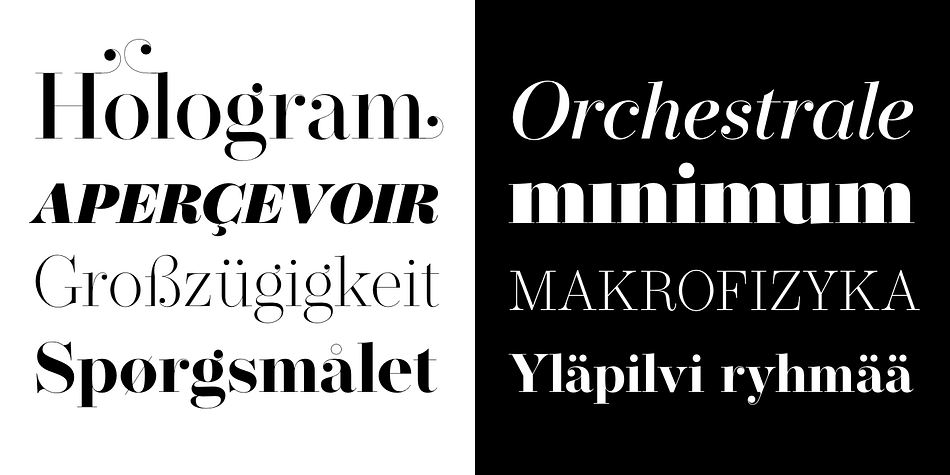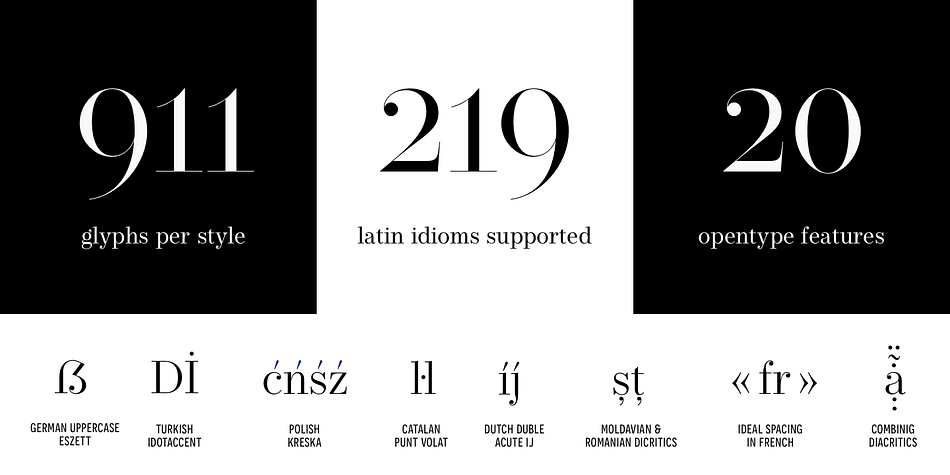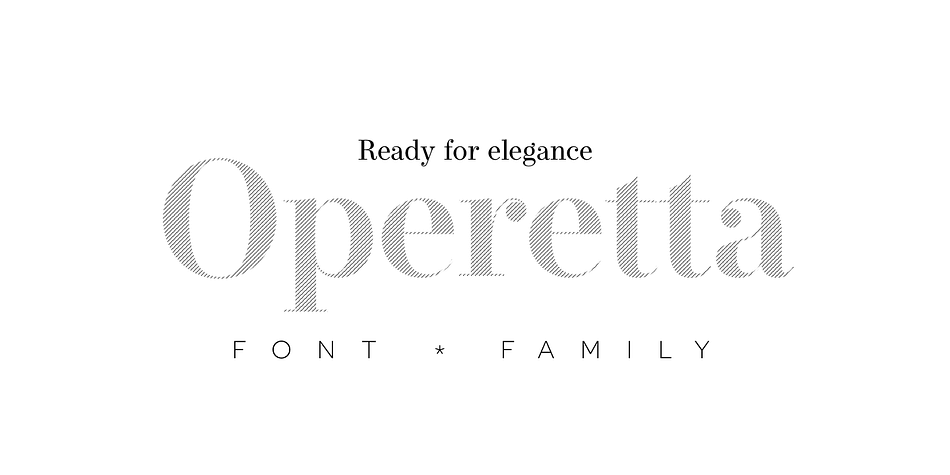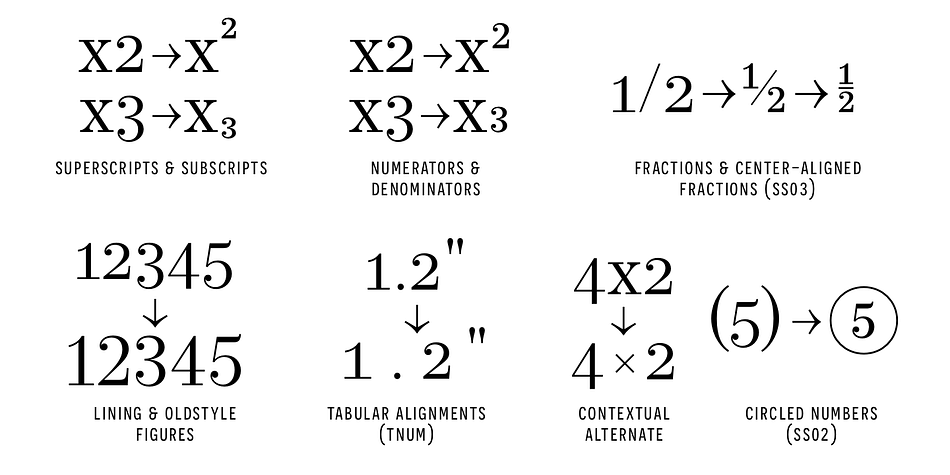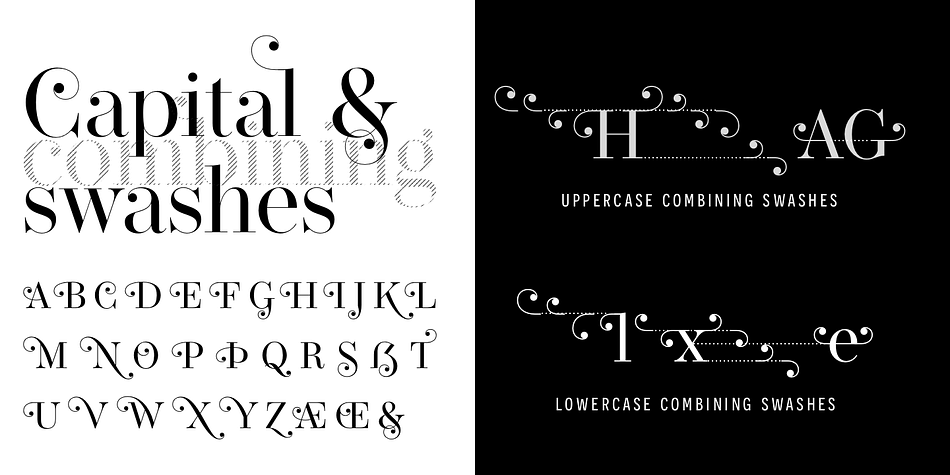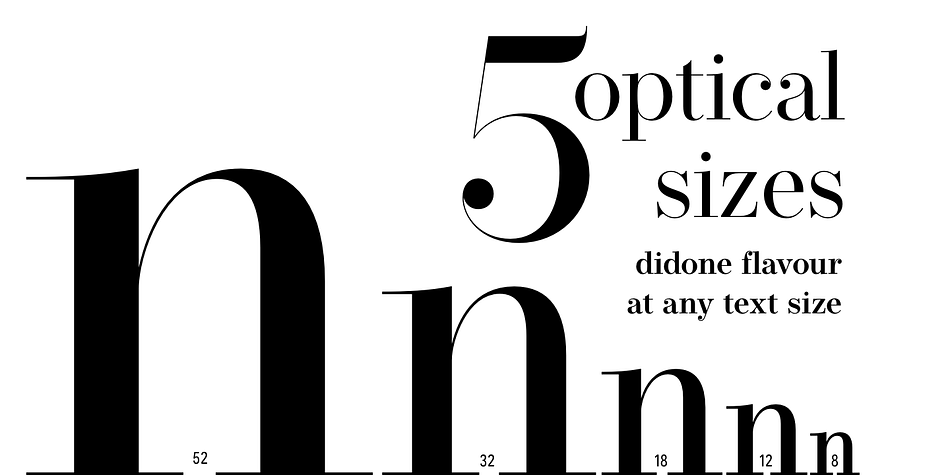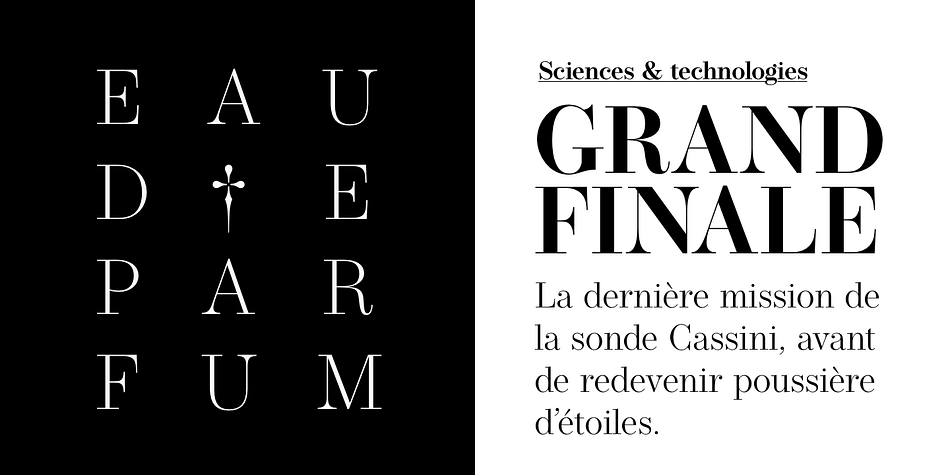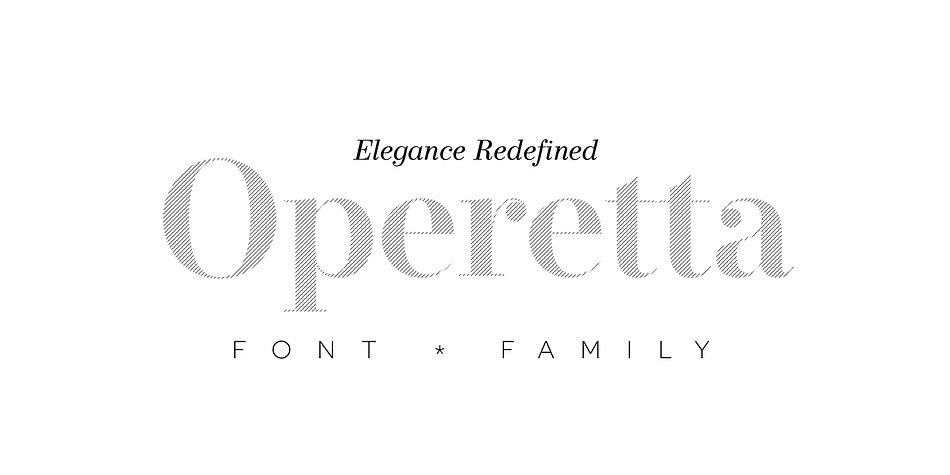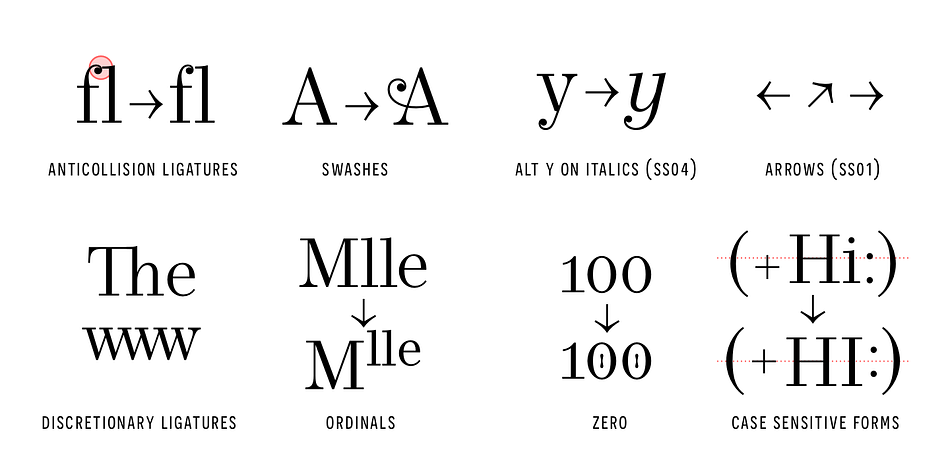
Designed by Jan Tonellato, Operetta is a serif font family. This typeface has forty styles and was published by Synthview Type Design.
Operetta is a neo-didone display font family inspired on Bodoni, Didot (early 18th century) and Walbaum (19th century). Despite of this heritage, Operetta’s design meets contemporary taste and typesetting needs.
Five optical sizes give you control over the font’s readability on different sizes. Eight weights from Extra Light to Extra Bold let you set your tone: from delicate to exuberant.
Operetta’s generous character set and opentype features let you meet the most demanding layout needs. And don’t forget swashes, arrows and other extra glyphs (911 per style)!
The number displayed in the font family name represents the minimal size (in points) the style should be used in print design. In web design you should multiply the minimum value by 3/2 for a retina screen; multiply by 2 for a 72 dpi screen. Of course its rendering depends on the printing support, screen resolution, hinting support, etc. Therefore, take it as a suggestion or a starting point; make your own trials.